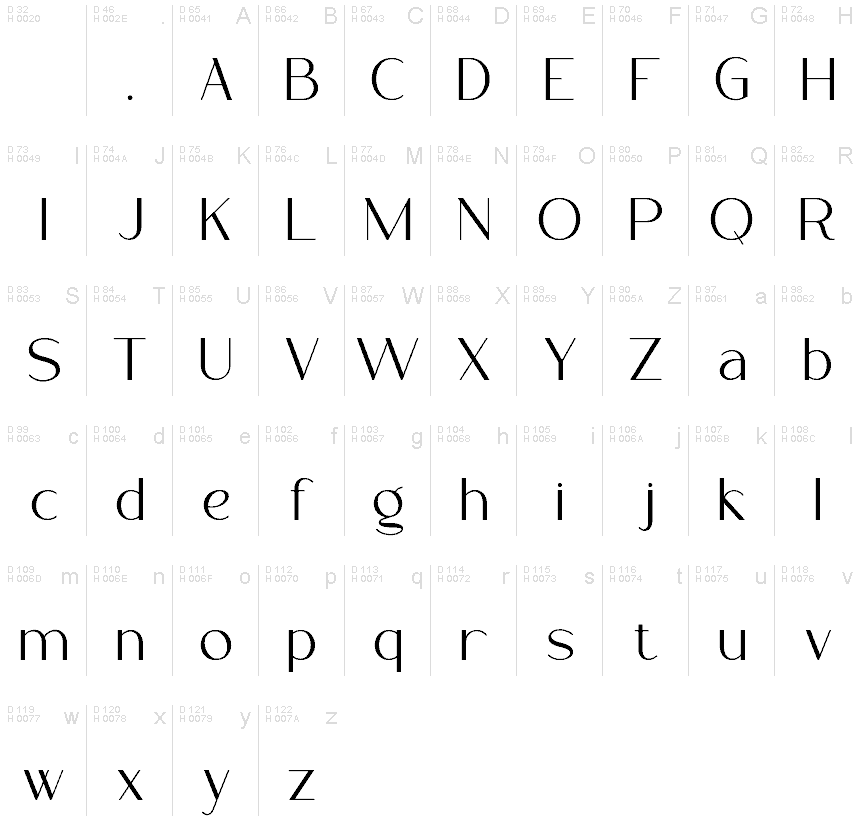
Ragna Regular
Ragna font by Achmad Yani is an elegant, modern sans serif with fluid curves and minimalistic shapes. This sophisticated font has a structure based on thin rounded forms, flowing horizontal parts, and natural connections within the characters for better readability.
Contemporary applications in branding and editorial design will commonly use this font for logo design, corporate identity development, packaging, headlines in magazines or newspapers, posters and brochures. Other examples include digital platforms such as websites or mobile applications alongside stationery work like envelopes or business cards.